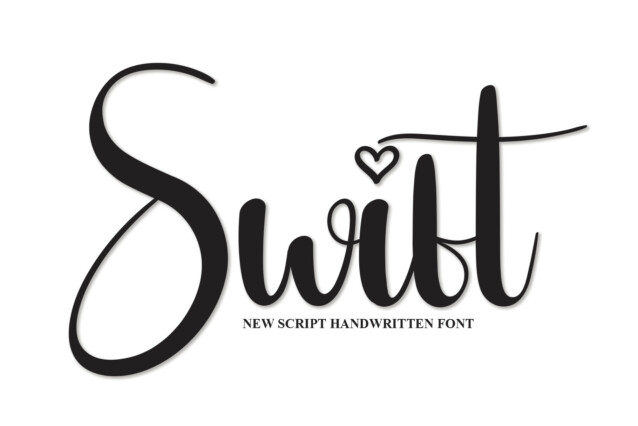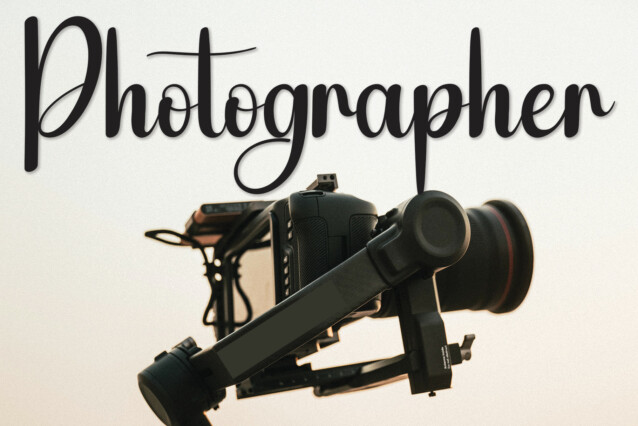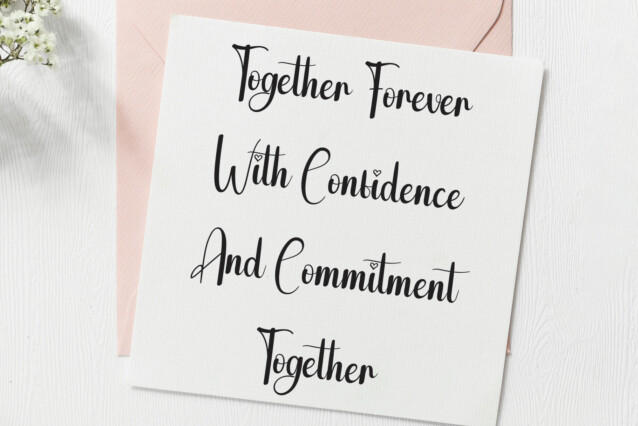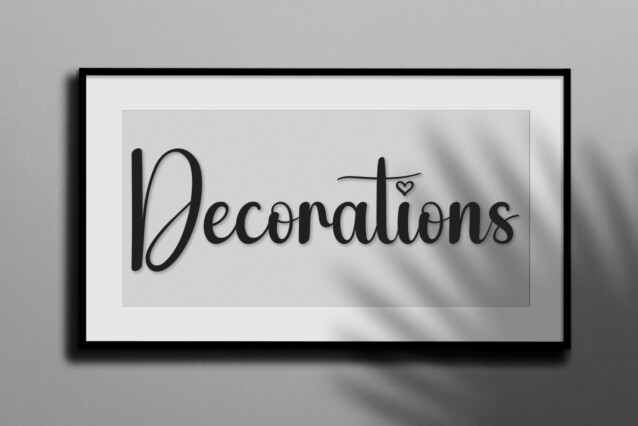
Swift Script Font
Swift Script Font is a lovely handwritten font with an elegant touch. Its latest style letters are perfect for wall displays, wedding invitations, social media post logos, advertisements, product packaging, product designs, labels, photography, watermarks, invitations, stationery, and any project that requires taste handwriting.